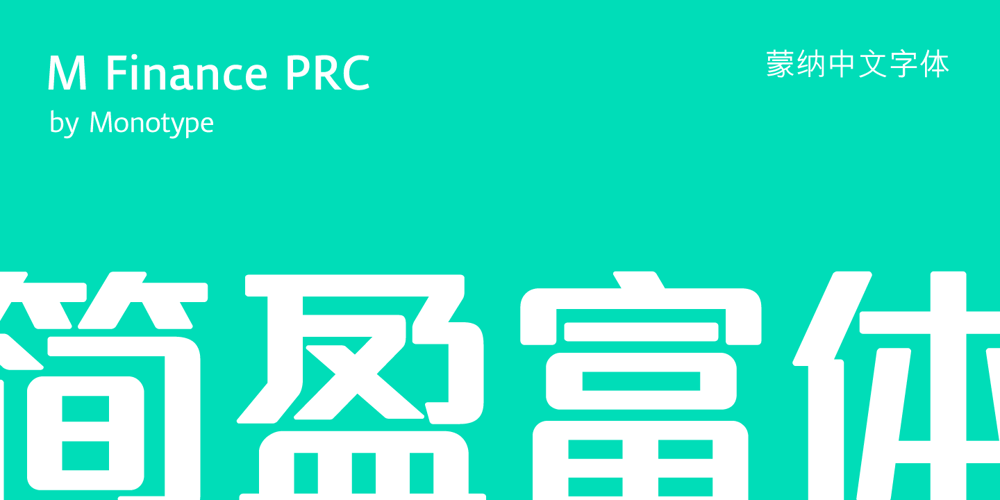
M Finance PRC Font Family was designed by Monotype HK Design and published by Monotype HK. M Finance PRC contains 1 styles and family package options. M Finance is a design inspired by the popular M Elle. M Finance incorporates features of M Yuen or other rounded Gothic-style typefaces. Crossbars (橫) and stems (豎) have squarish entry and finial points with slight round corners, parallel without flare. Thick-thin contrast of strokes is low and the text is visible. Its extra bold stems (豎) make it suitable for eye-catching display. Even distribution of space, careful positioning, size and proportion of radicals create a slightly expanded, opened and balanced construction. Its features and construction create a feel of subtle sharpness and stiffness with wholesome elegance. It is best suited for casual display text, illustrations, set upright (non-slanted), non-condensed.